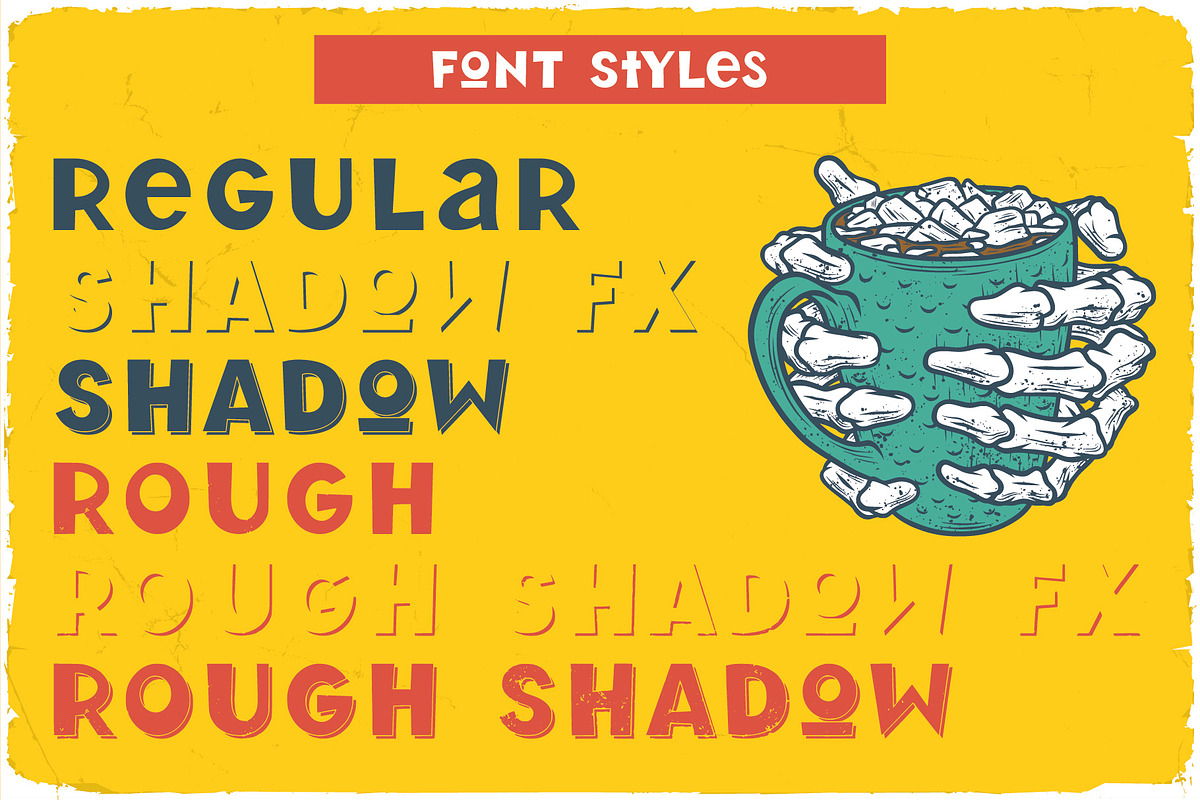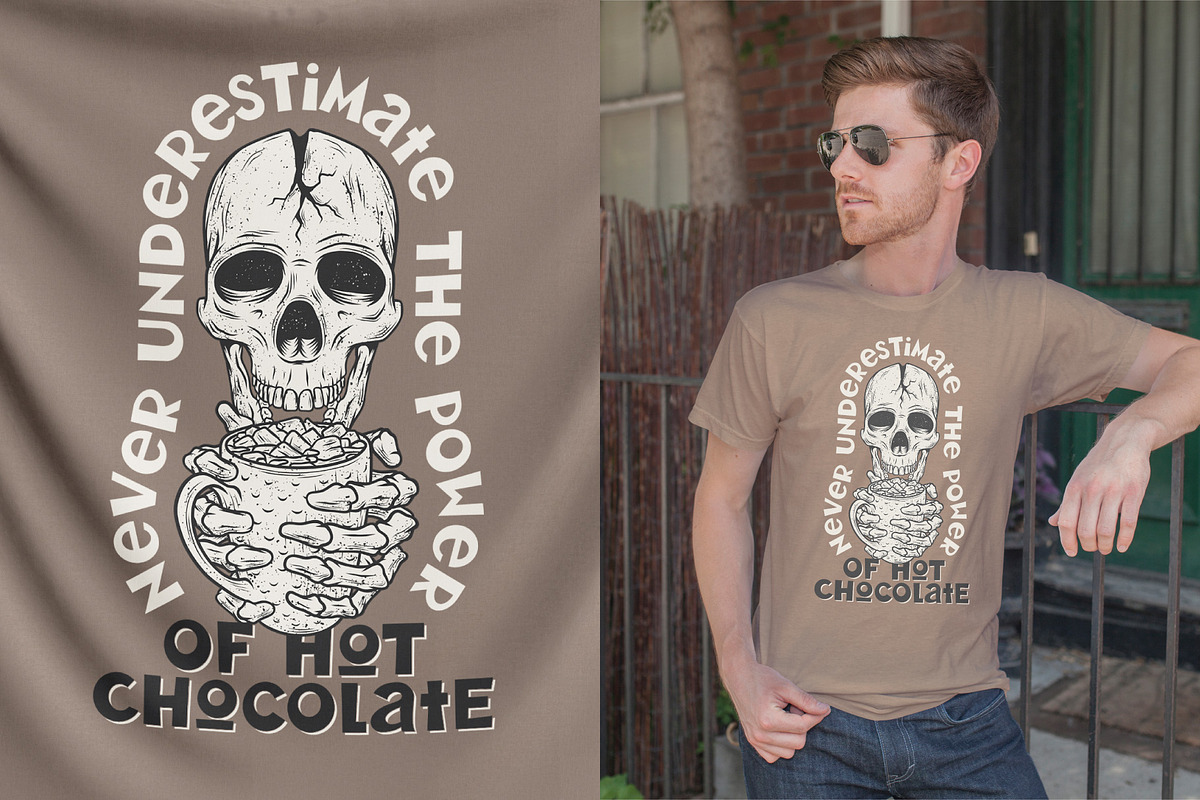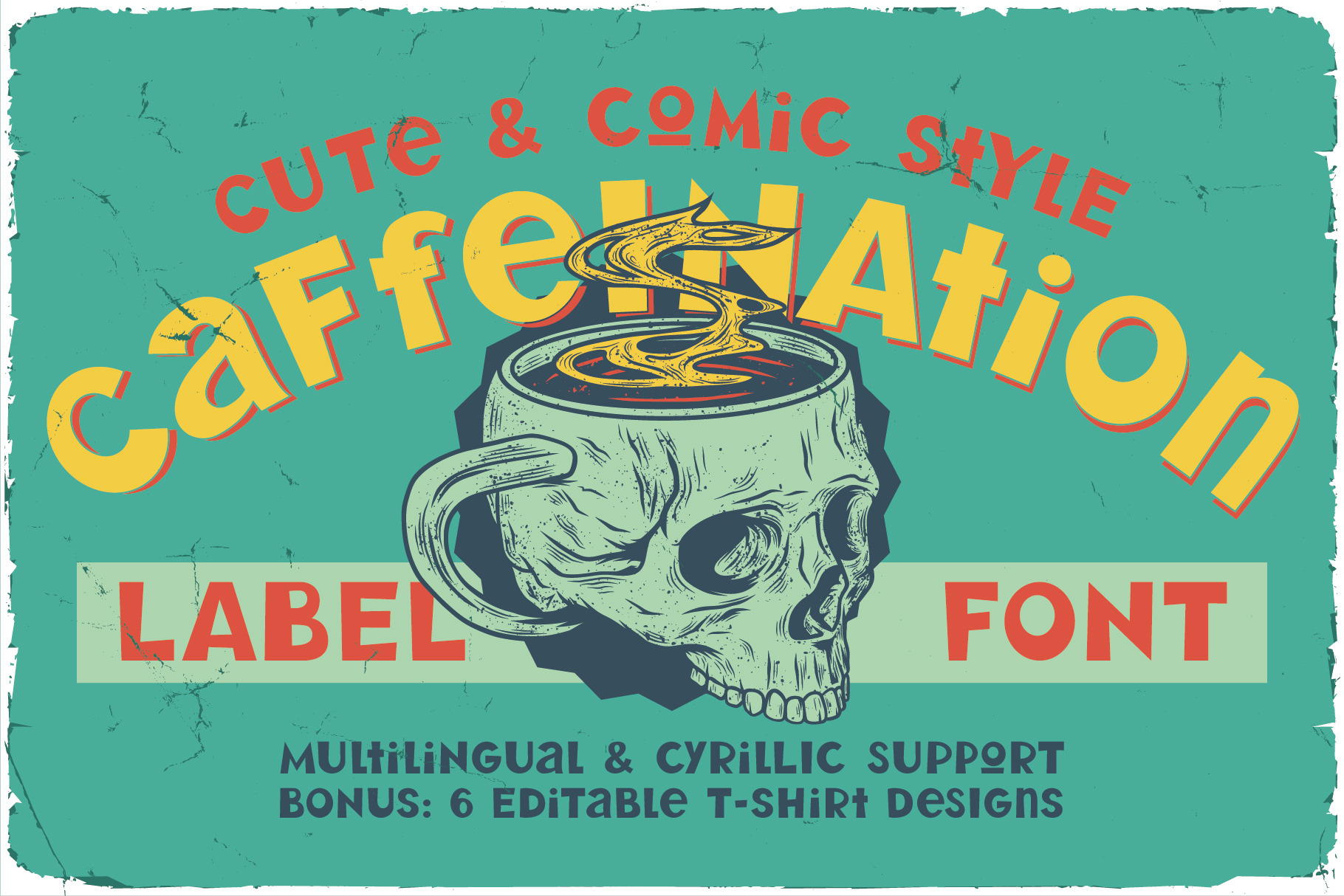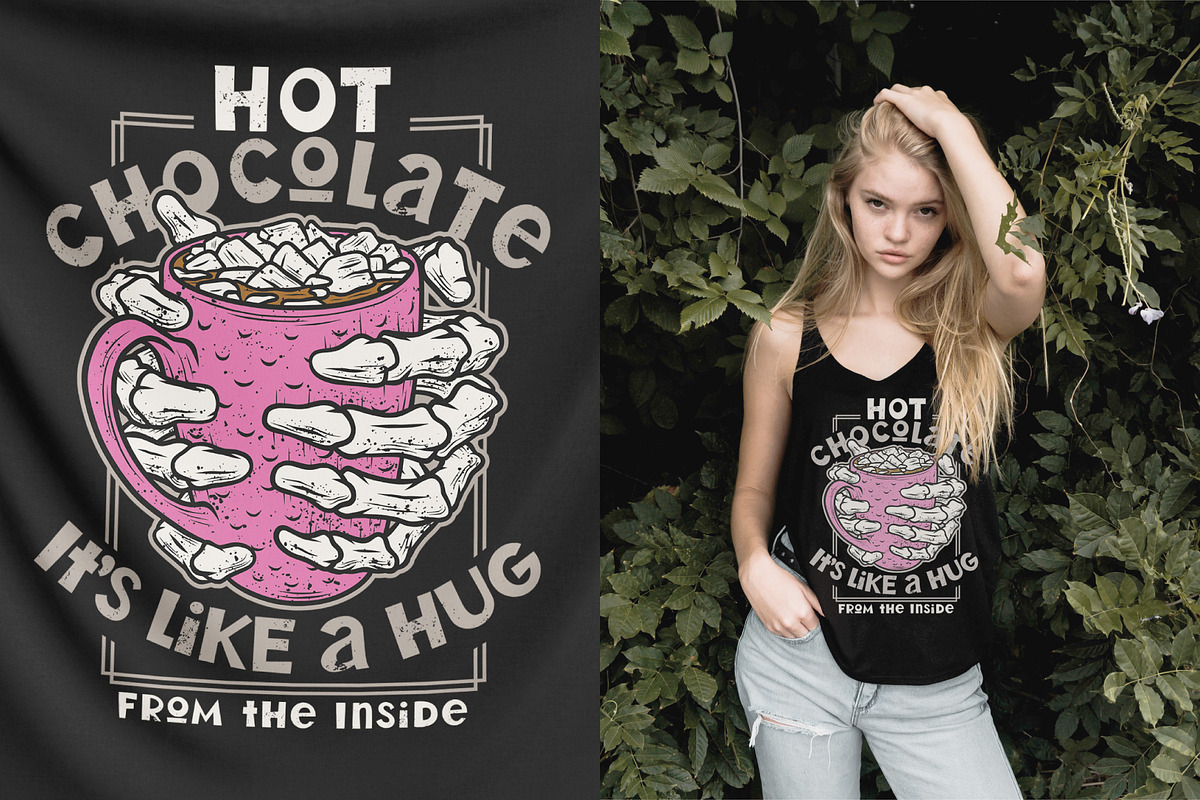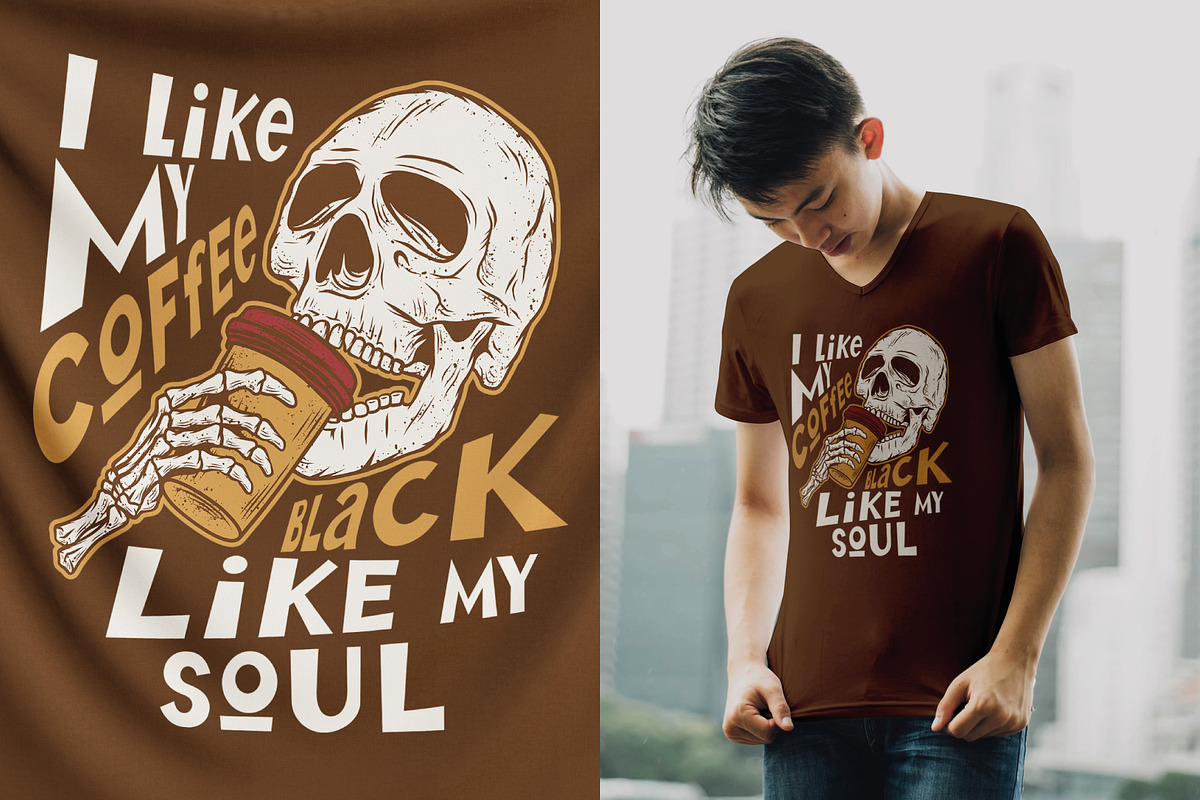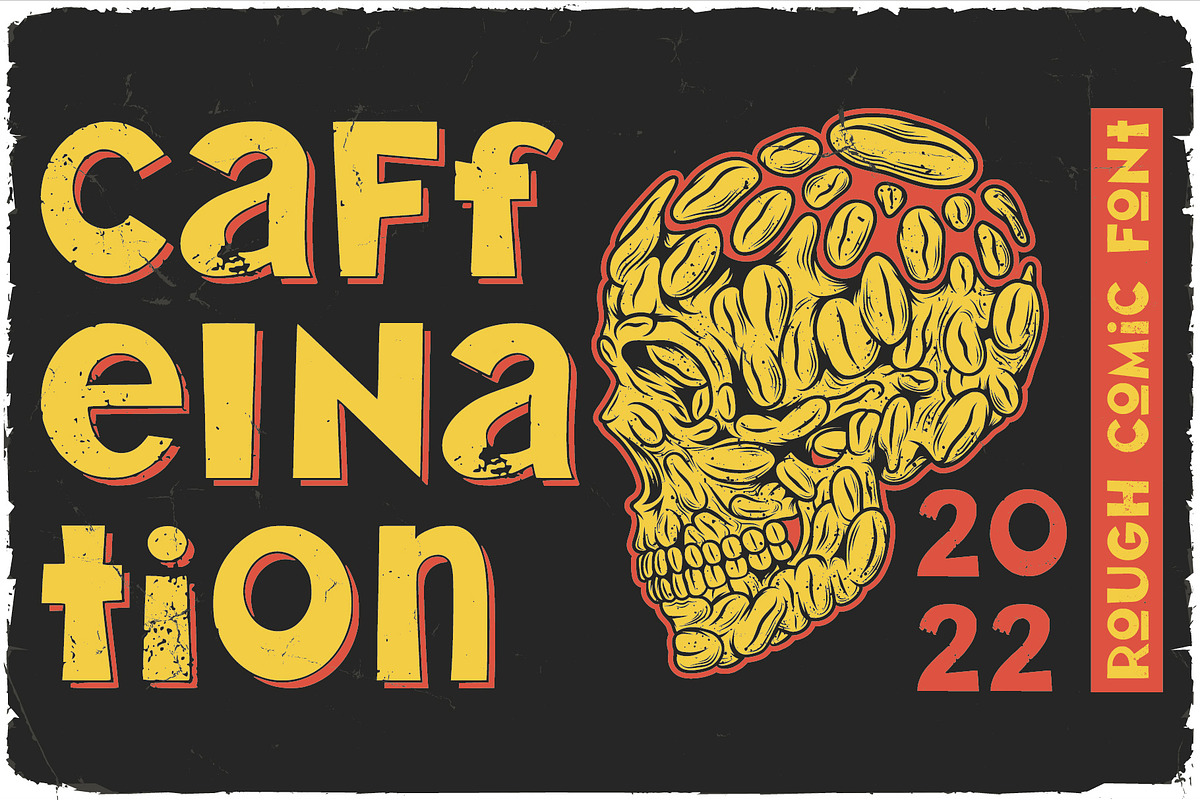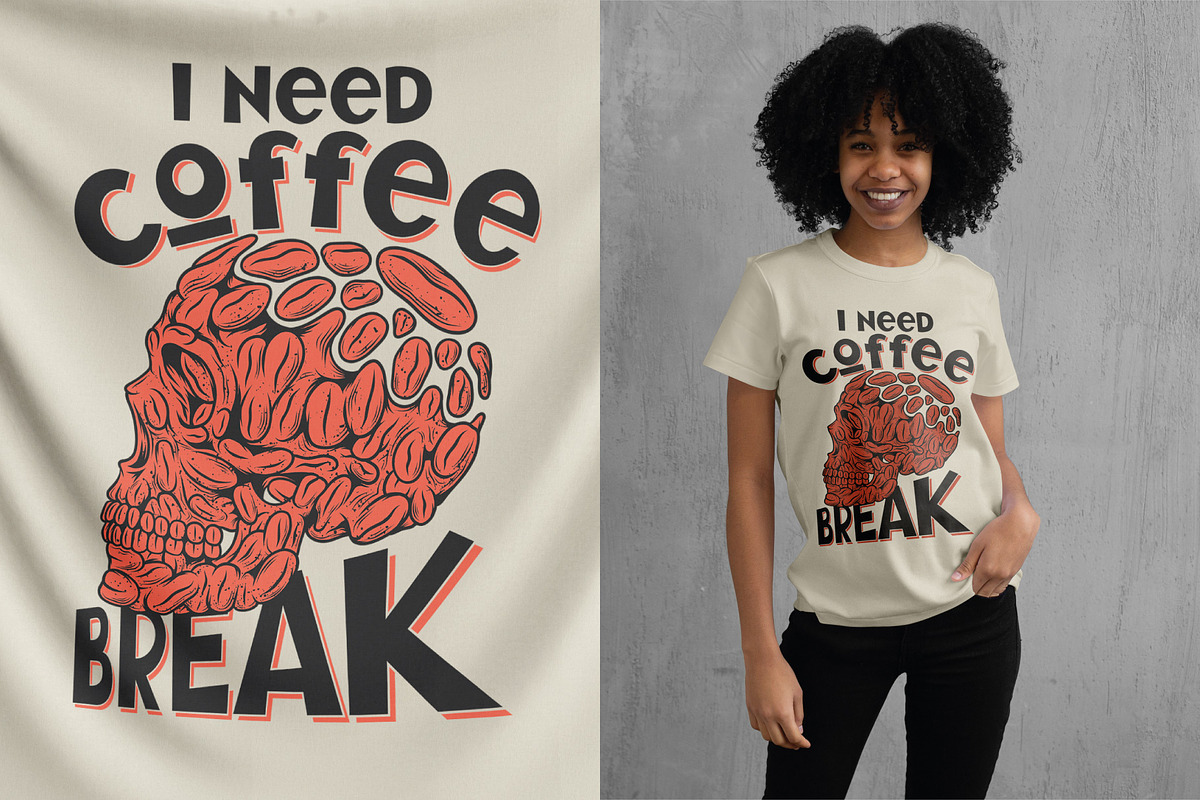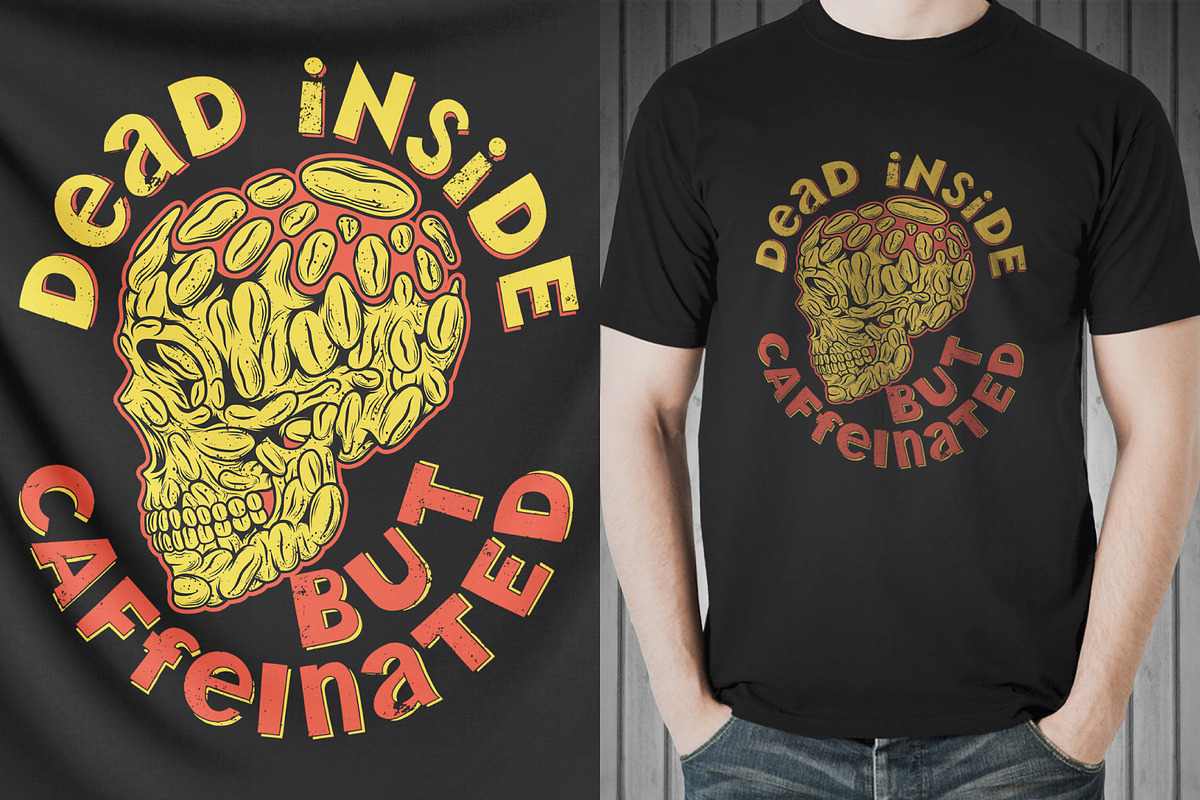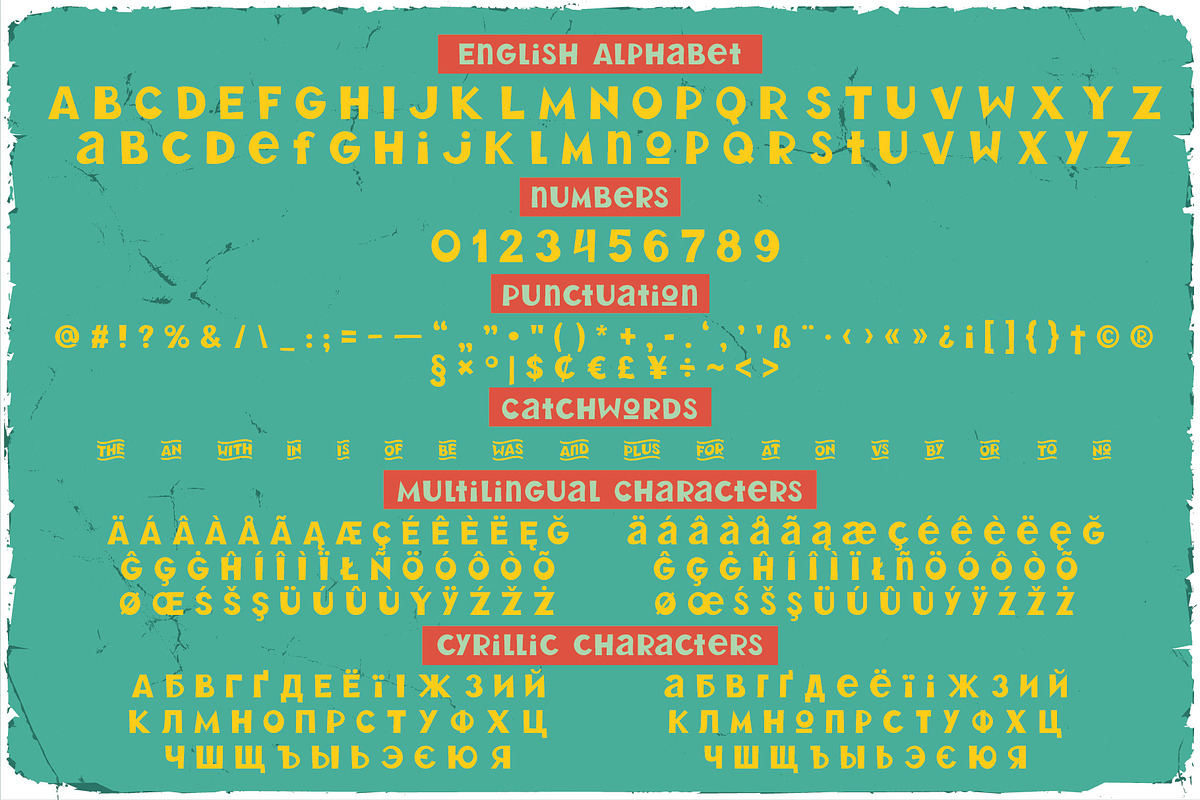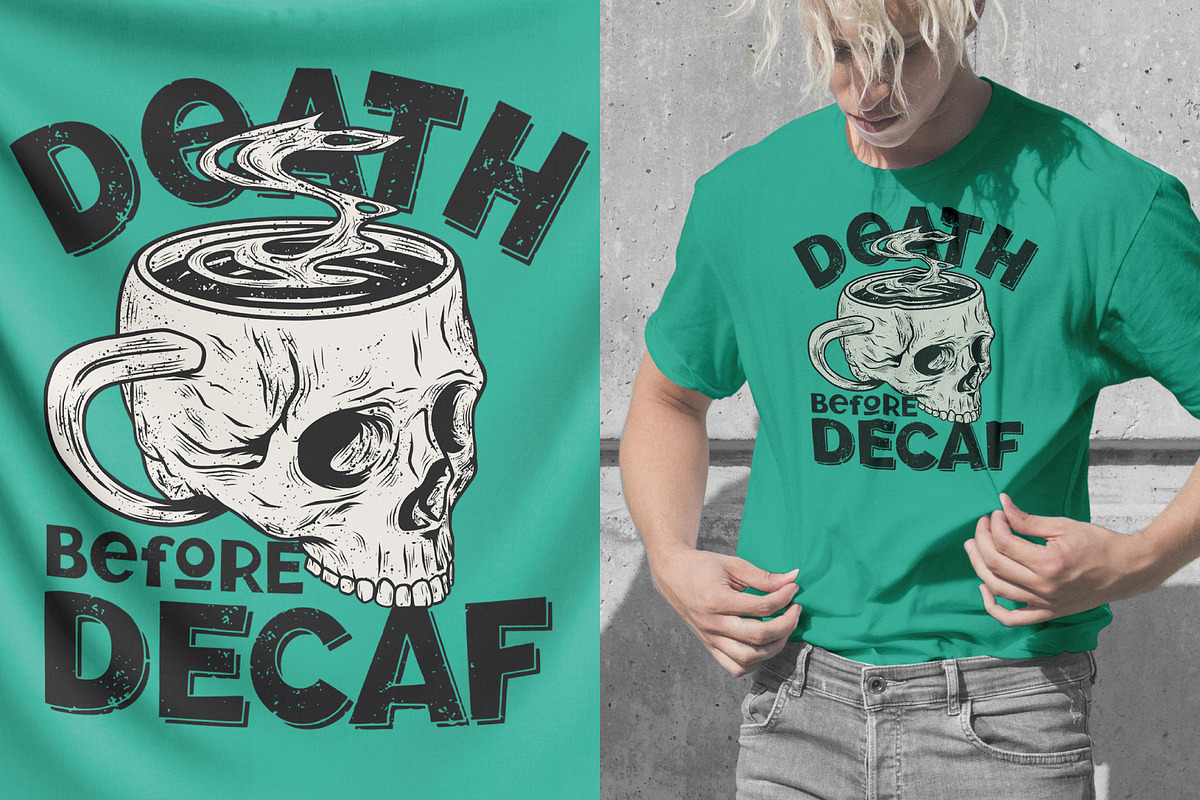
Caffeination Layered Comic Font
Introducing a comic style label font named Caffeination. This font has a wide languages support with west european and cyrillic characters (check out all available characters on previews). The font family has six styles: Regular, Shadow, Shadow FX, Rough, Rough Shadow FX and Rough Shadow. Each of these fonts have same metric and kerning. This font will look good on any comic or vintage styled designs like a poster, T-shirt, label, logo, etc.
- A lot of additional symbols and multilingual support.
- Support of catchwords. Just add after the (an, with, in...) 2. For example the2 (an2, with2, in2...)